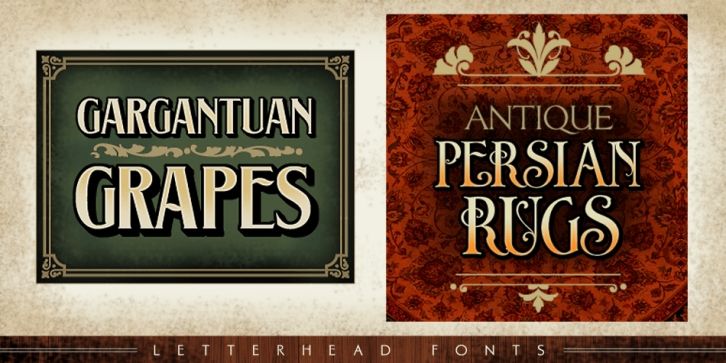
Publisher: Letterhead Fonts
Designed by Mike Jackson, LHF Saratoga Ornaments is a dingbat font family. This typeface has two styles and was published by Letterhead Fonts.
Each font contains 62 expertly drawn decorations, corners and accents for a total of 124 ornaments. All 124 of these ornaments are exclusive to Letterhead Fonts. Typing each letter generates a different design.